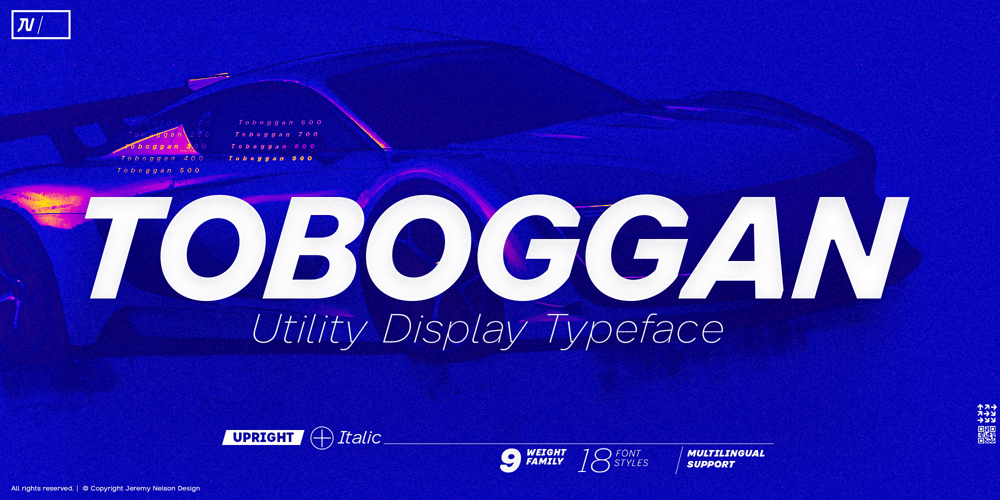
Toboggan Font Family was designed by Jeremy Nelson and published by Jeremy Nelson. Toboggan contains 18 styles and family package options. TOBOGGAN | Utility Display TypefaceToboggan is a utility display typeface with classically influenced proportions, calligraphic elements, and sporting roots. With 9 weights, upright, and true italics, Toboggan comes in a total of 18 fonts.With flexibility from a crisp Thin weight to an imposing Super in both upright and italic, Toboggan thrives as a utility font spanning the columns of extended text, in artful editorial layouts, eye-catching motion graphics, or commanding headlines in a title role.First drafted around the frame of a perfect circle, Toboggan evolved by taking inspiration from the sweeping contours of the automotive world, expanding into wider proportions, and adopting an abrupt set of constructed features. Sturdy with the spirit of sport, Toboggan’s final form preserves a human connection through features of the written hand, while minimal contrast and its chopped terminals bring a decisive tone with clinical precision.Features:- Nine weights and true Italics- Multilingual support (Extended Latin – Includes Western European coverage and more)- OpenType features including small-caps, stylistic sets, contextual punctuation & more- Extensive numeral sets including stylistic sets, circled, and squared numbers